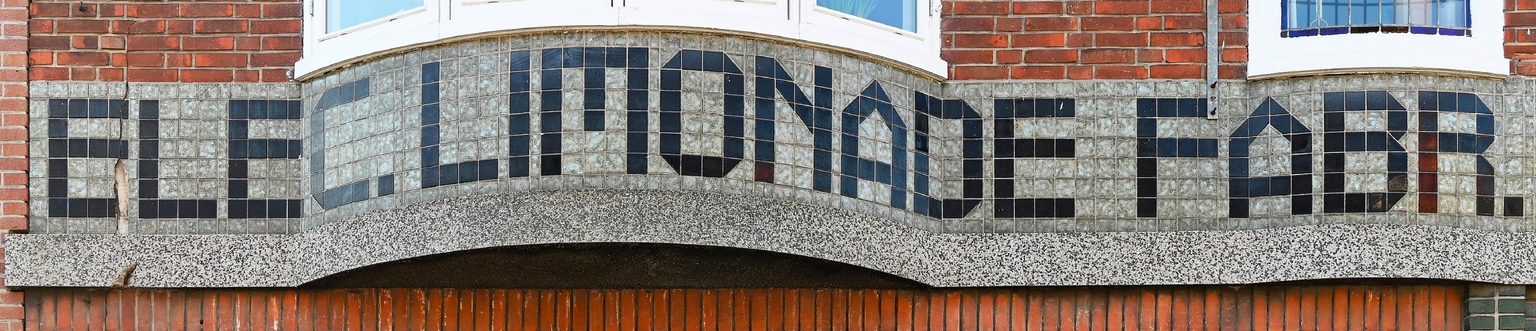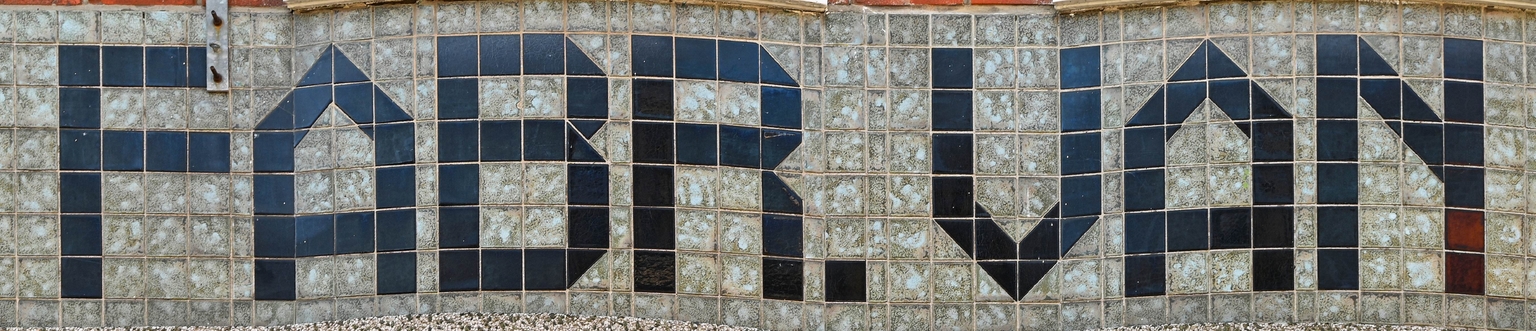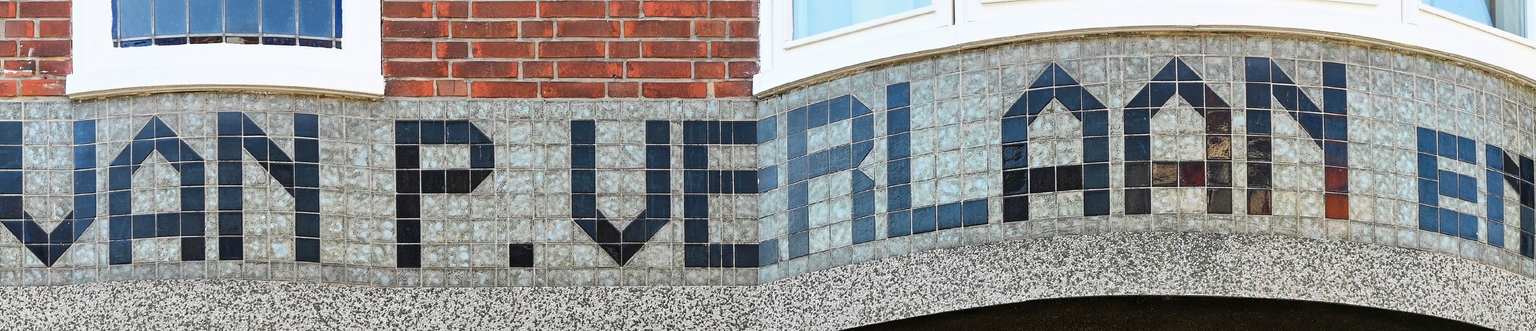
Limonade
Limonade is a display typeface designed by Ramiro Espinoza and inspired by the tiled, modular lettering on the façade of the former Limonade factory P. Verlaan & Zn, located at Venestraat 56 in Leidschendam, the Netherlands. The building was designed by architect Halverhout and inaugurated in 1931. Its ceramic-letter signage is constructed from individual tiles arranged in a clear, pixel-like system that combines functionality with a distinct visual identity. Typical of early twentieth-century industrial architecture, the lettering follows a rational approach to signage while allowing subtle variation within a disciplined modular structure.
Espinoza studied the construction logic of the original tiles and translated it into a contemporary digital typeface. The forms were refined, proportions adjusted, and the character set expanded to meet current typographic requirements, while preserving the geometric clarity and architectural presence of the source material.
With its narrow proportions, strong character, and clean appearance, Limonade is well suited for posters, packaging, branding, signage, websites, and editorial projects that call for a structured yet distinctive typographic voice.